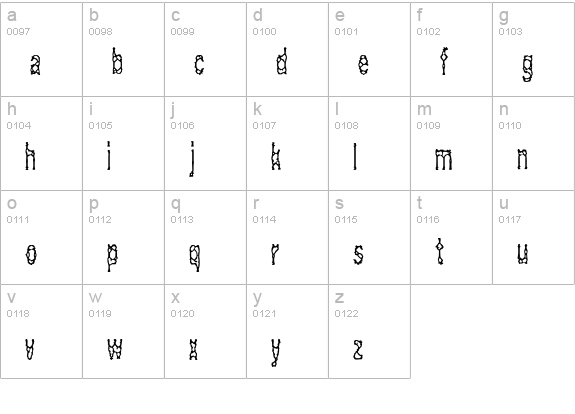
Acid Reflux BRK Font Details
Acid Reflux BRK font is a striking and modern typeface that exudes a sense of edginess and sophistication. With its sharp angles and unique design, this font is perfect for creating eye-catching headlines, logos, and branding materials. The bold and daring aesthetic of Acid Reflux BRK font makes it a standout choice for projects that demand a touch of originality and personality. Best of all, Acid Reflux BRK font is completely free to download at FontsMarket.com. Whether you're a designer looking to add a fresh element to your creations or a business owner seeking a distinctive font for your brand, Acid Reflux BRK font offers endless possibilities. Don't miss out on this opportunity to elevate your designs with a free and dynamic font like Acid Reflux BRK. Download it today and unleash your creativity!